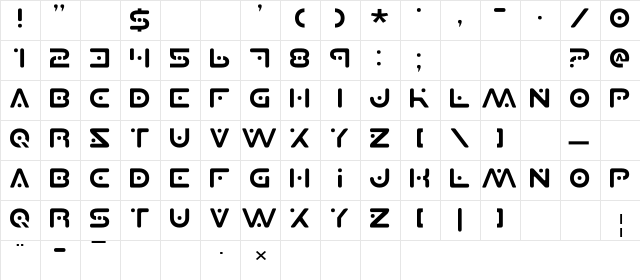
Planet X Regular
Design Context for Planet X Typeface
Planet X is a composed and adaptable typeface that performs quietly and consistently across a wide range of design contexts.
Pro Tip: Pair Planet X with a font of contrasting weight or personality to build a more expressive typographic hierarchy.